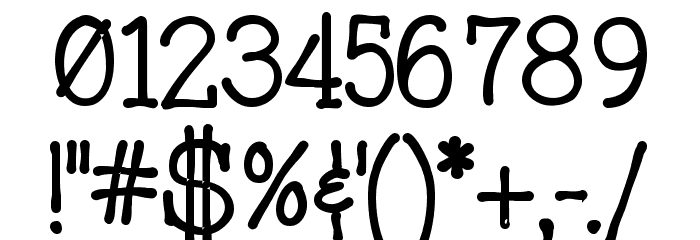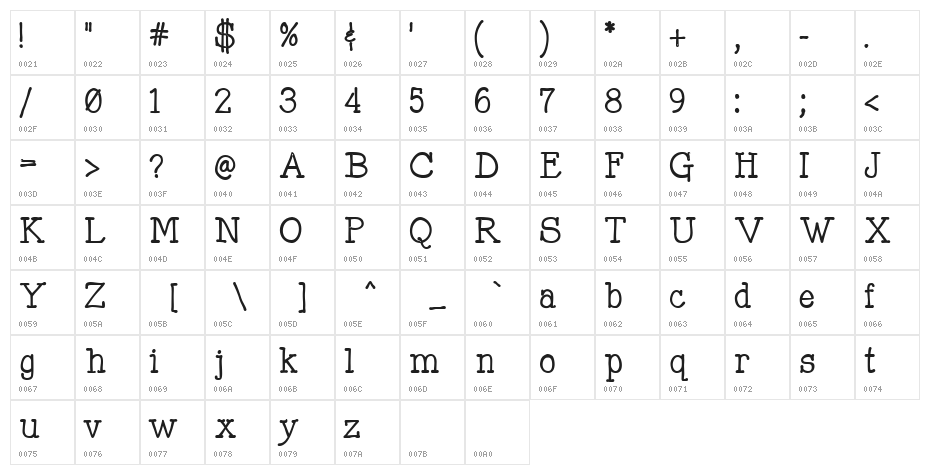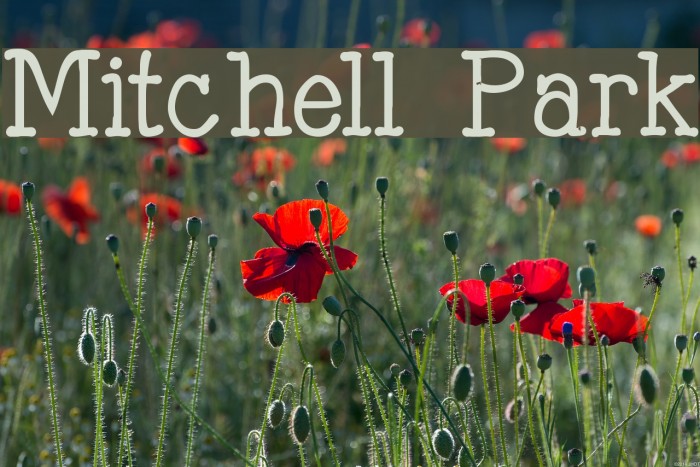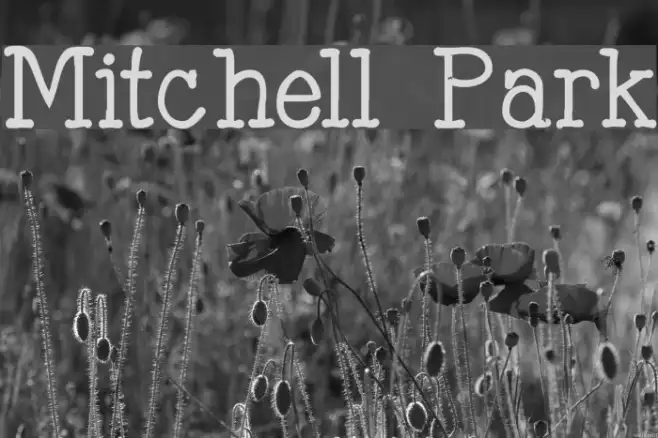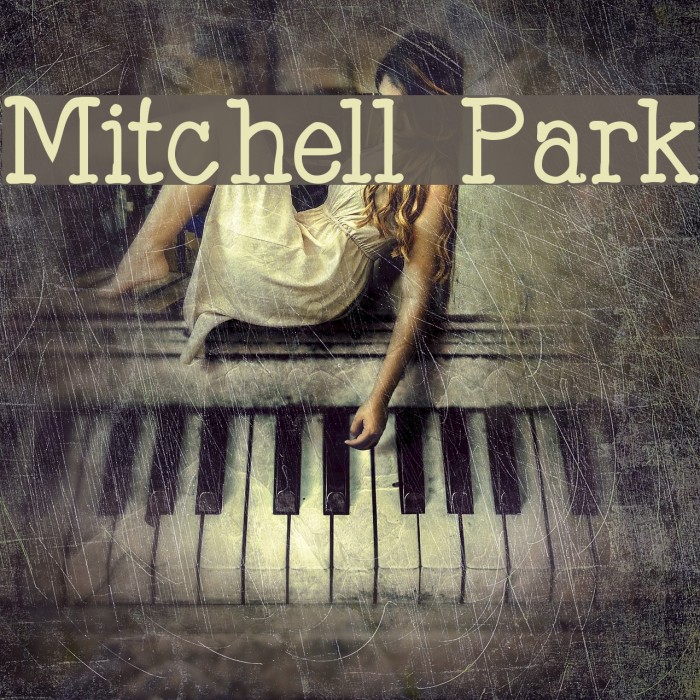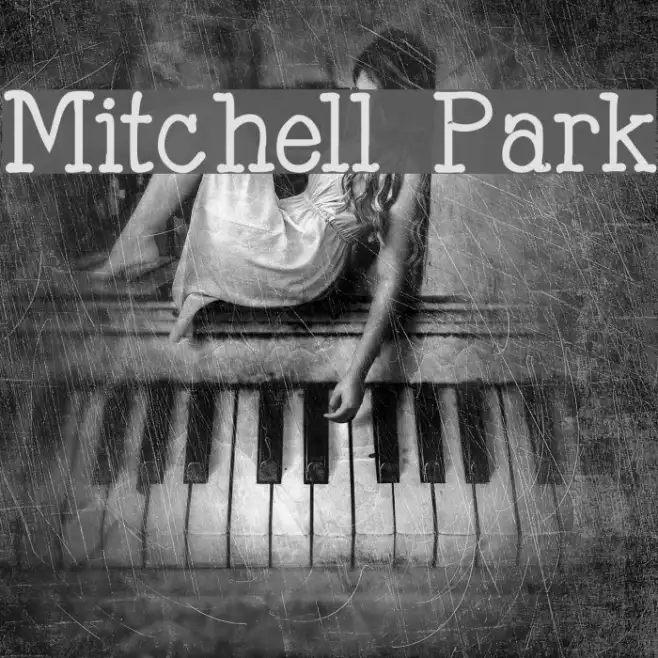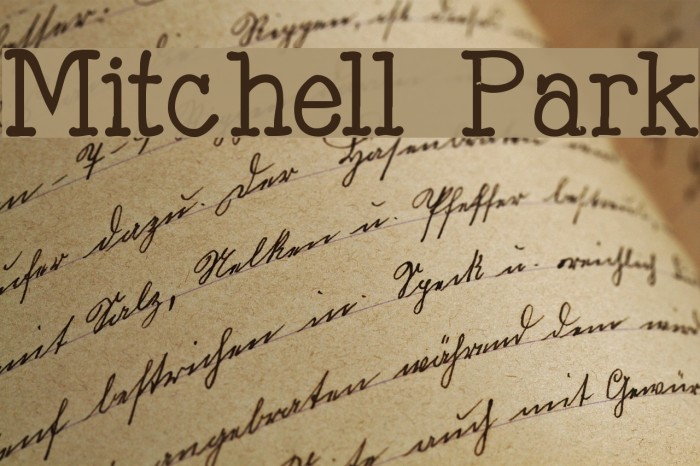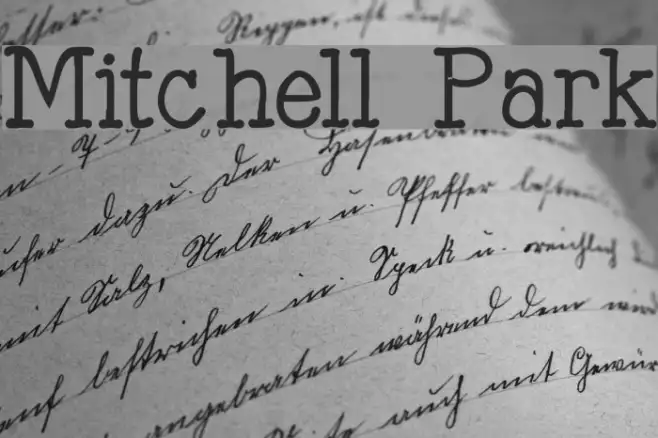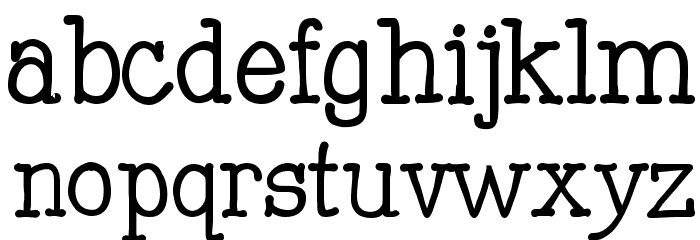
Mitchell Park Font
Mitchell Park Description
This font features a playful and slightly whimsical design, characterized by its rounded and slightly irregular strokes. The uppercase letters are bold and prominent, with a consistent height that gives a uniform appearance. The lowercase letters maintain a similar style, with rounded edges and a slightly condensed form, adding to the font's charm. The numbers are clear and easily distinguishable, with a consistent weight that matches the letters. Special characters are designed with the same playful aesthetic, ensuring a cohesive look across all elements. This font's unique style makes it suitable for creative and informal projects.
| Proposed Projects | Ideal for children's books, playful branding, invitations, and creative posters. |